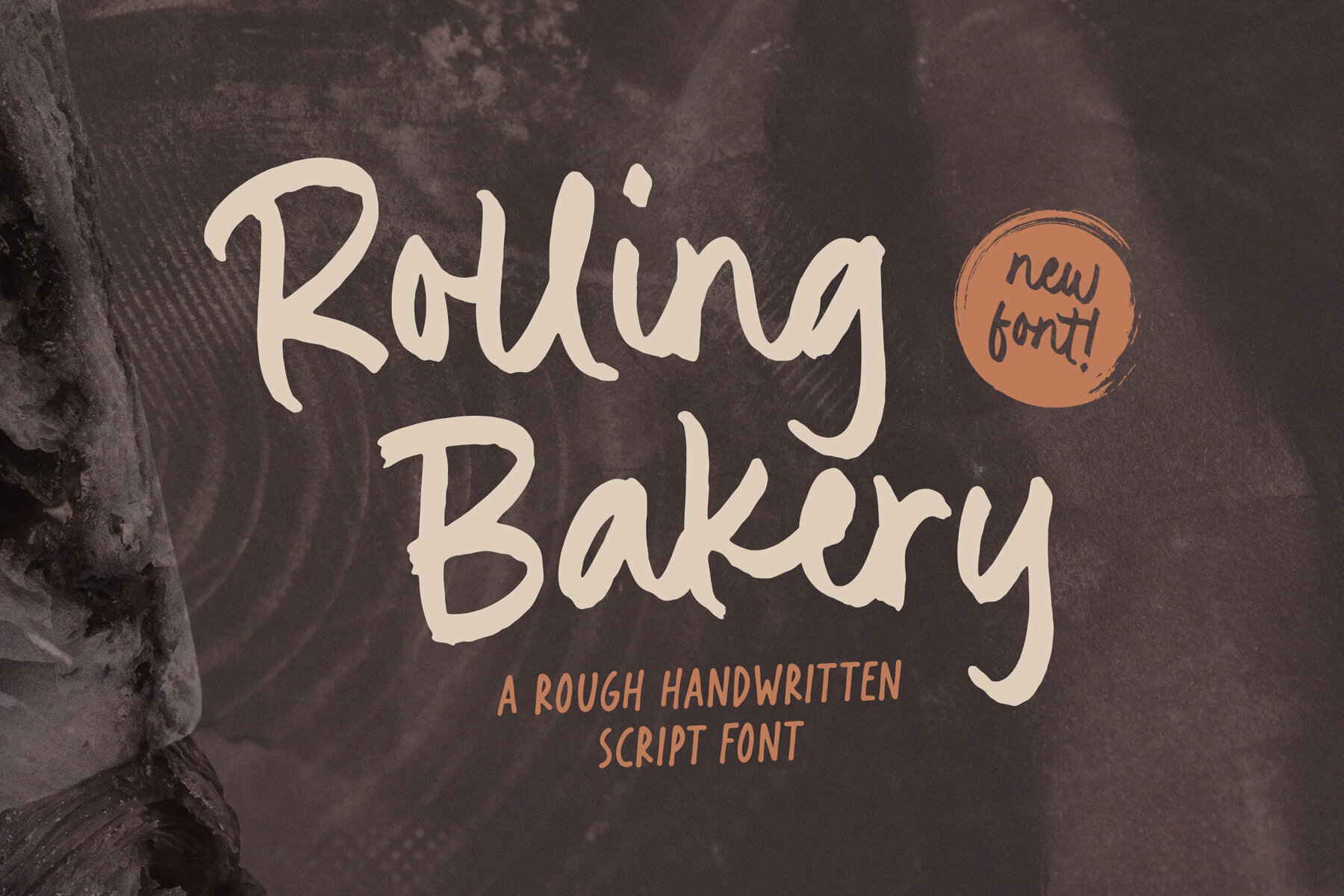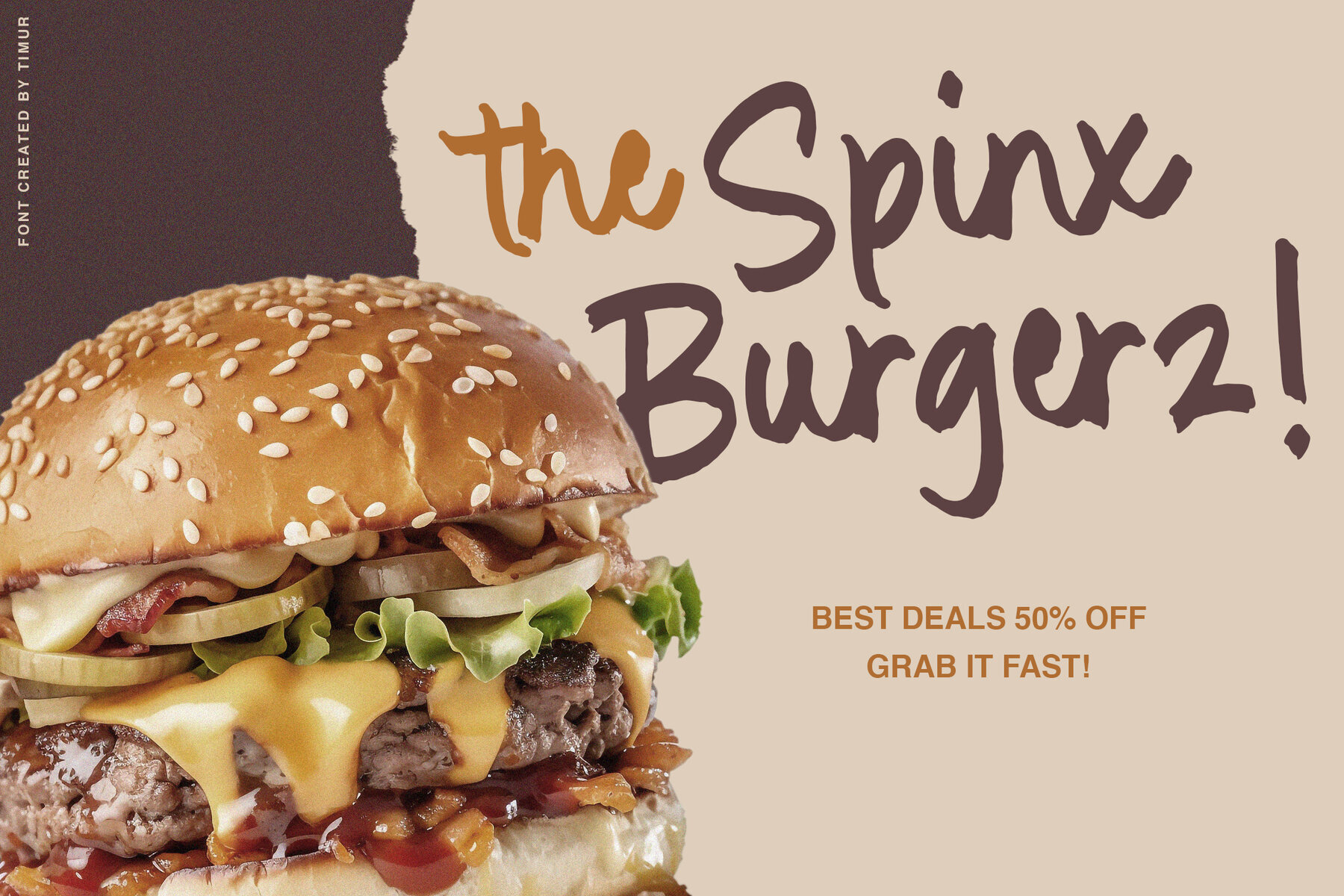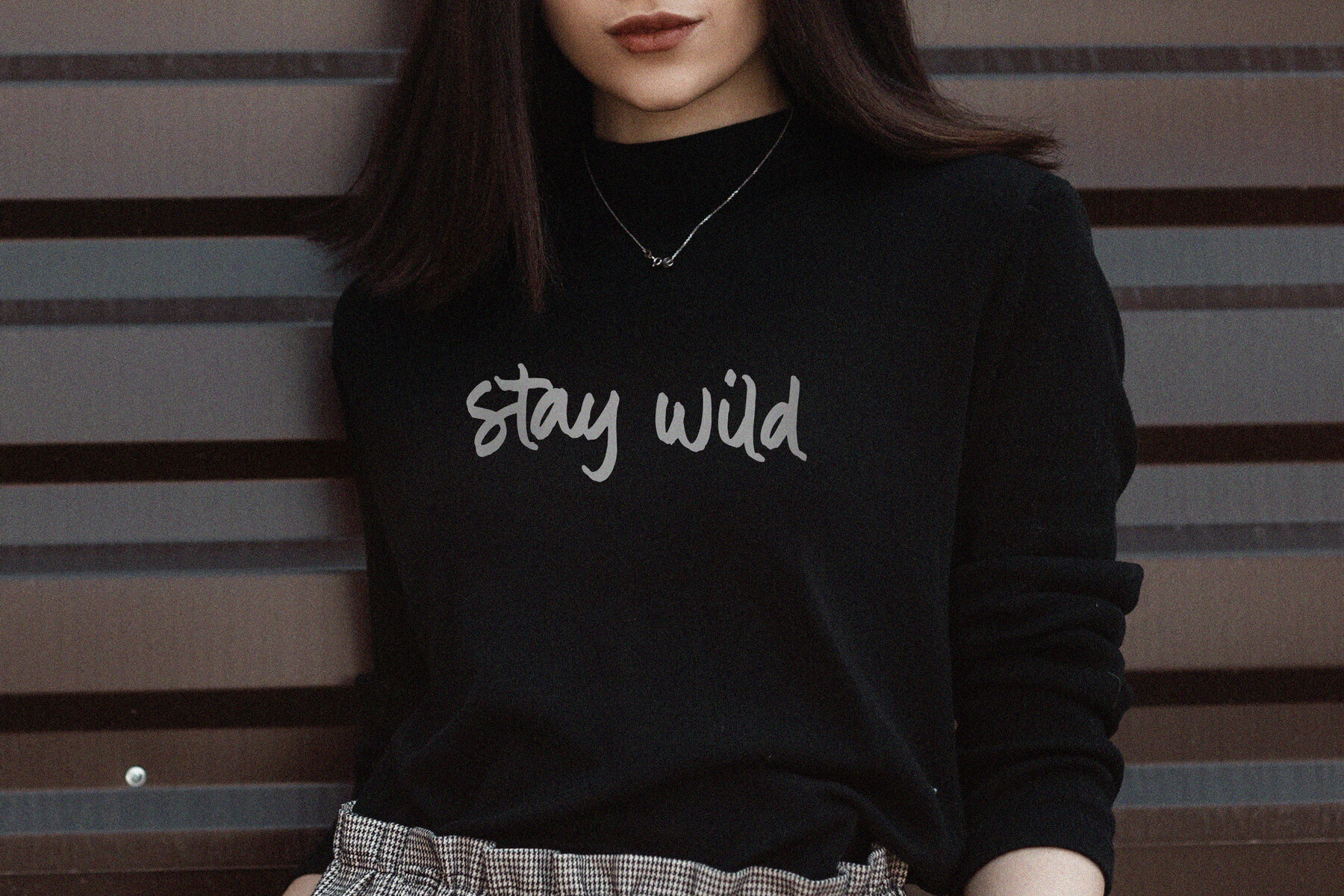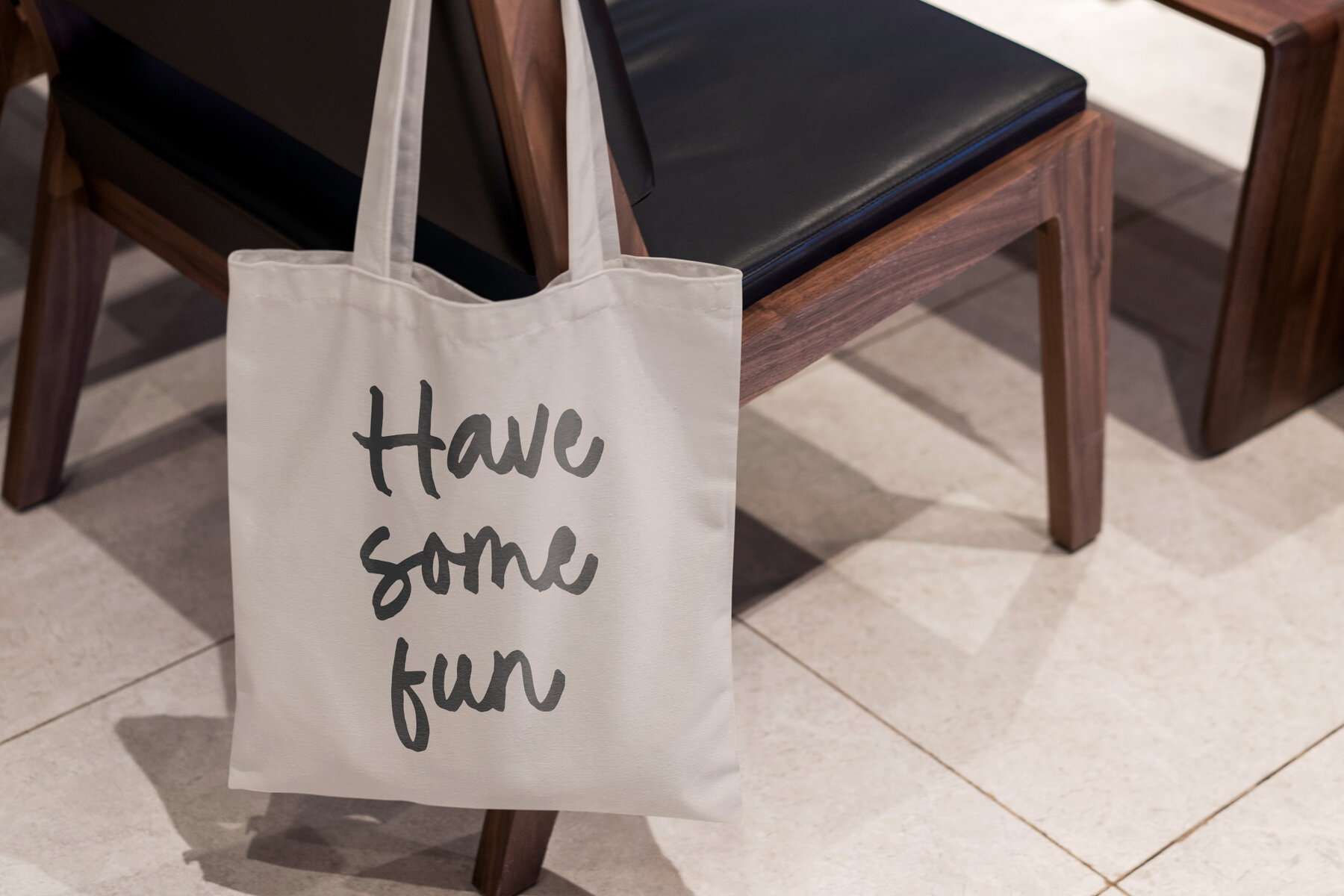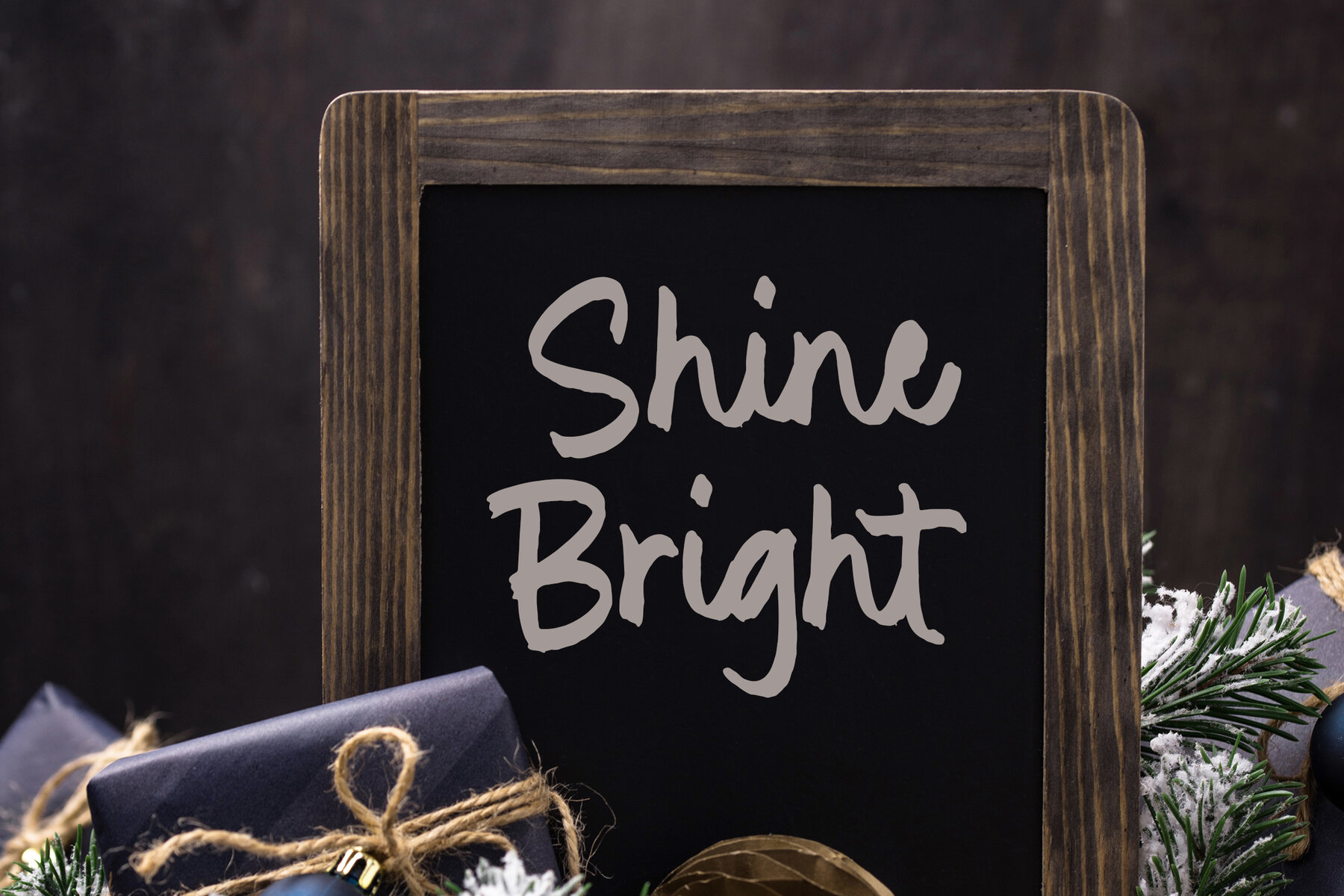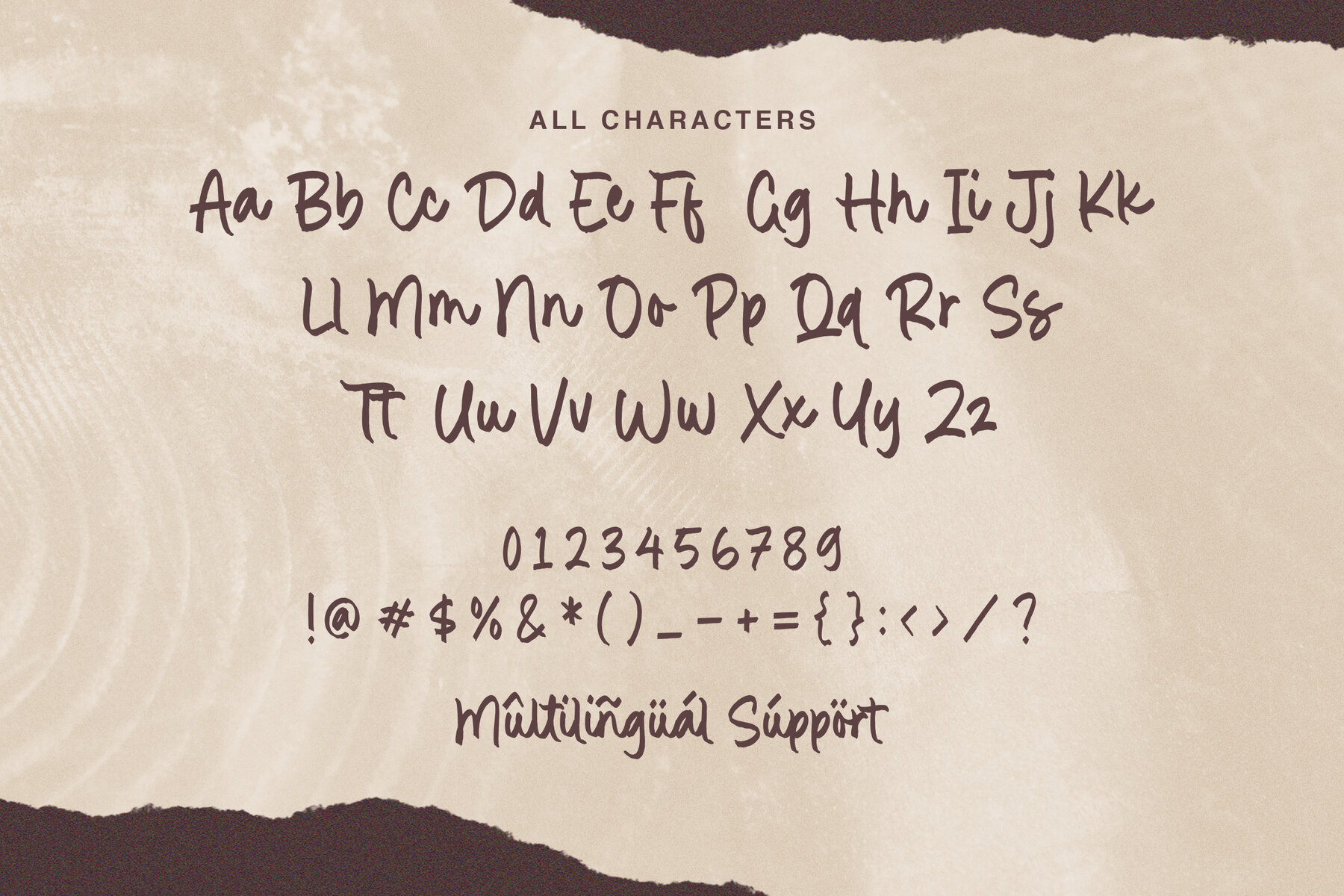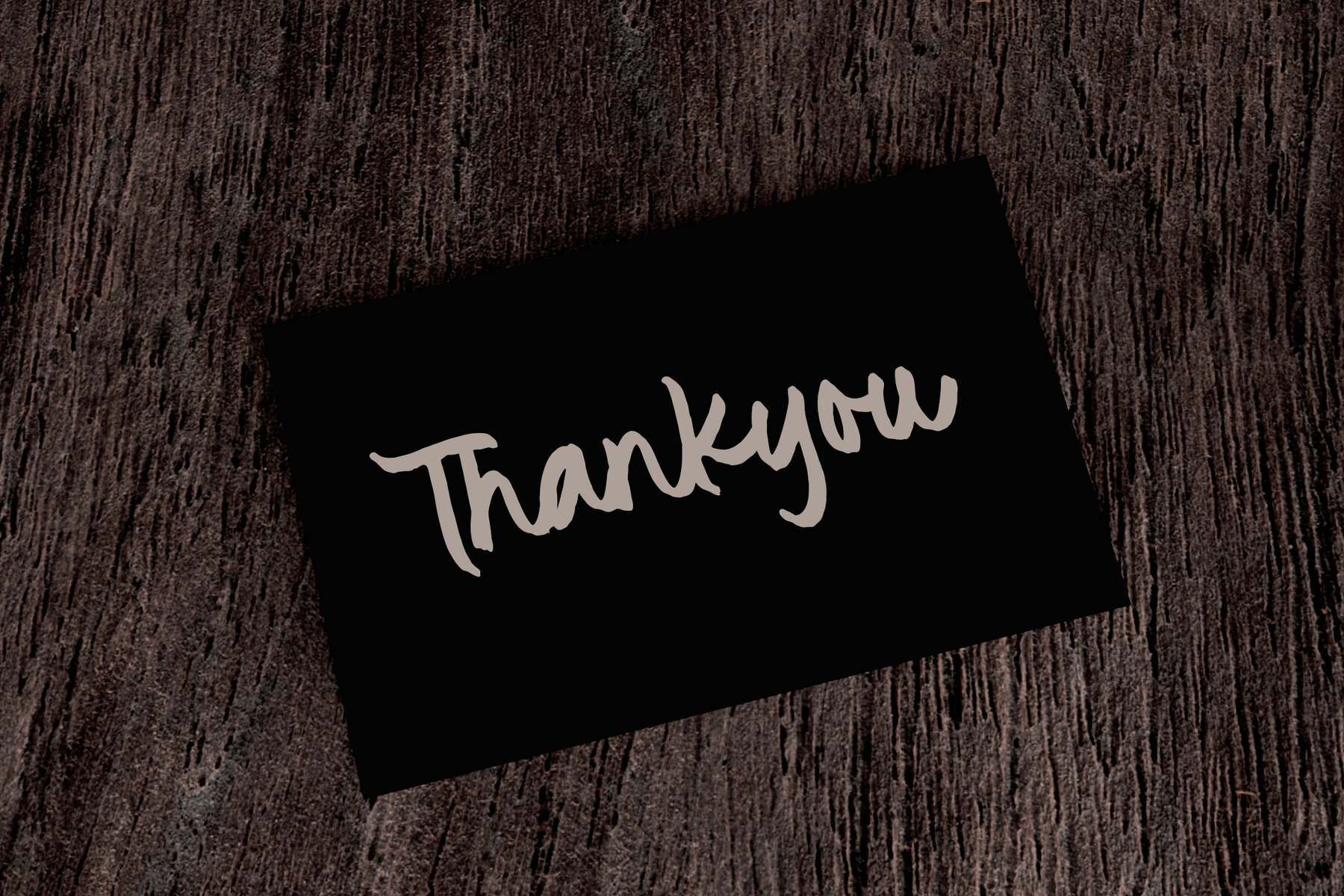
Rolling Bakery Font
Rolling Bakery
Rolling Bakery is a rough handwritten script that boasts a distinctive Latin form with charmingly sloppy edges, mimicking the art of beautiful handwriting. The font's careful attention to detail and abstract strokes at each end lends a touch of sophistication and unique style to any project.
Ideal for creating attention-grabbing titles and logos, Rolling Bakery’s individualistic nature ensures a standout appearance in various design applications. Its distinct flair makes it an excellent choice for adding personality and elegance to your design work.